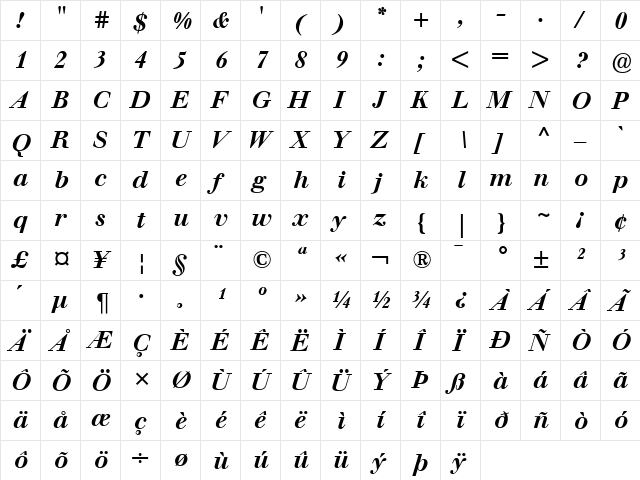
Berthold Walbaum Book ItalicBold Font Preview
Design Context for Berthold Walbaum Book Typeface
Berthold Walbaum Book offers clean, dependable letterforms without strong stylistic allegiance, making it a practical choice for designers who need flexibility. Its italic angle brings a sense of urgency and motion to the letterforms. Its bold stroke weight gives it real presence on the page.